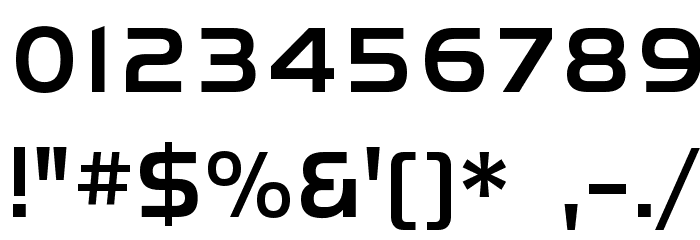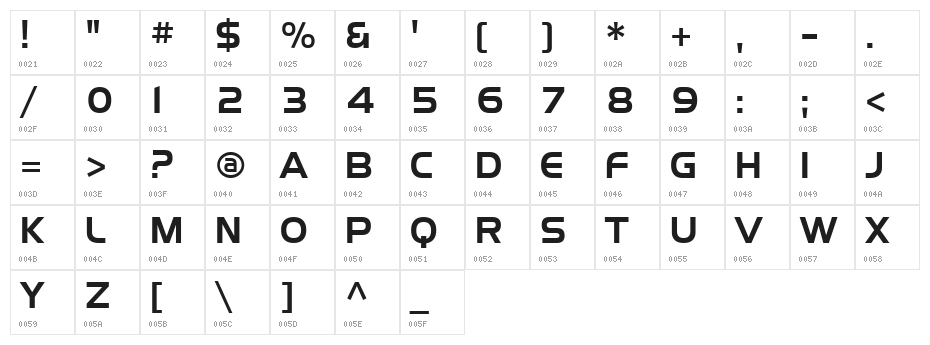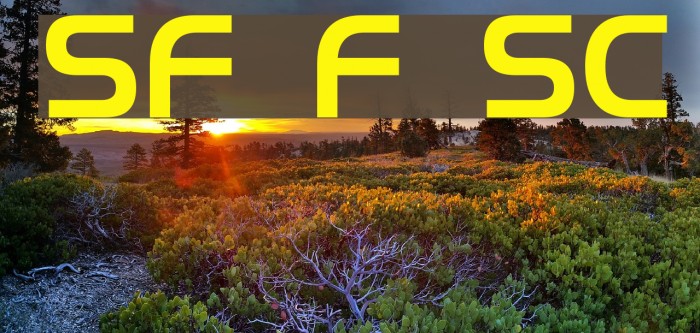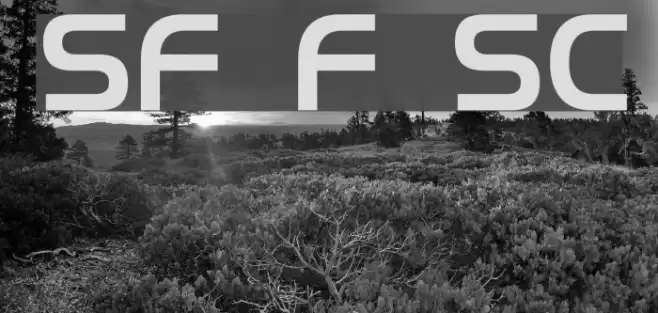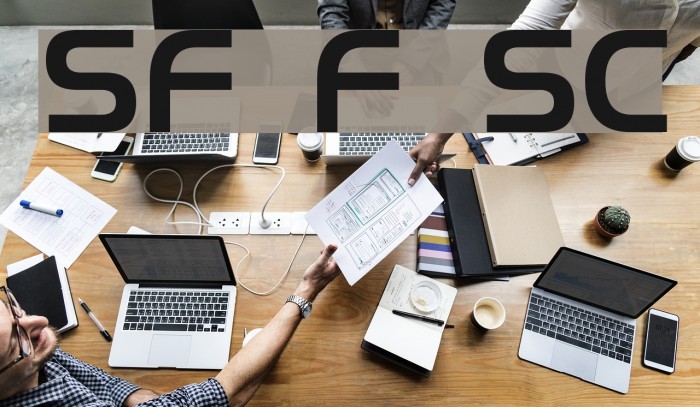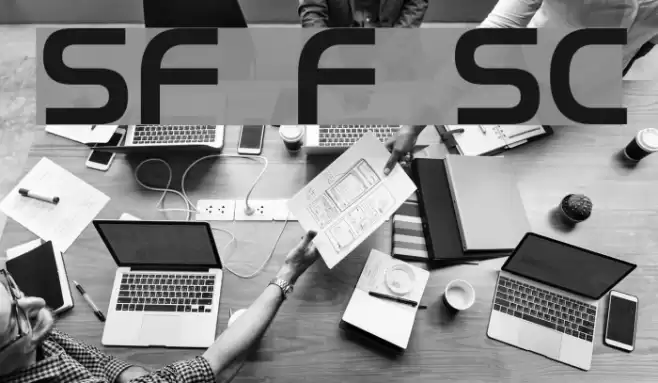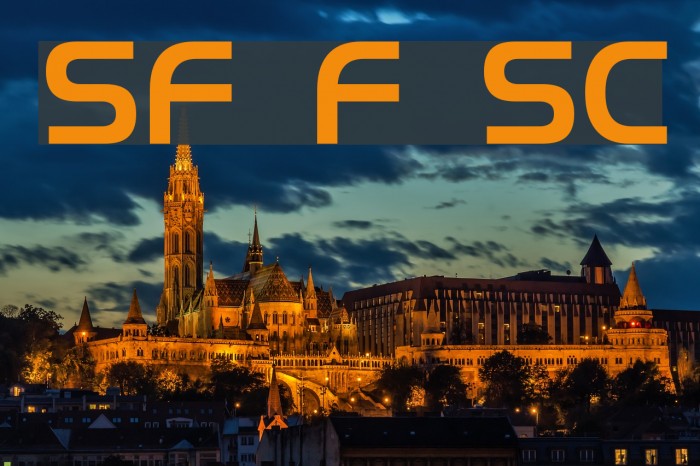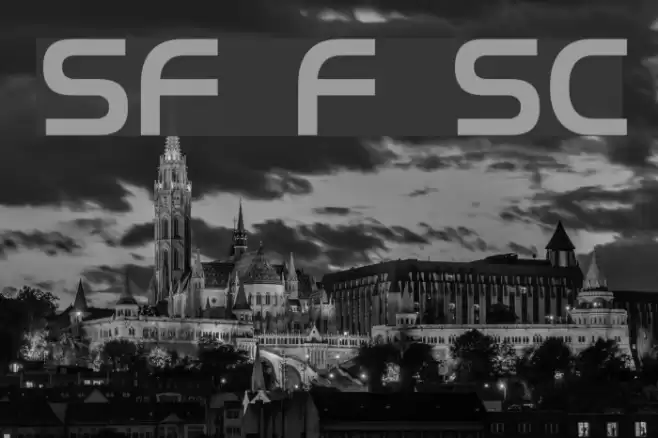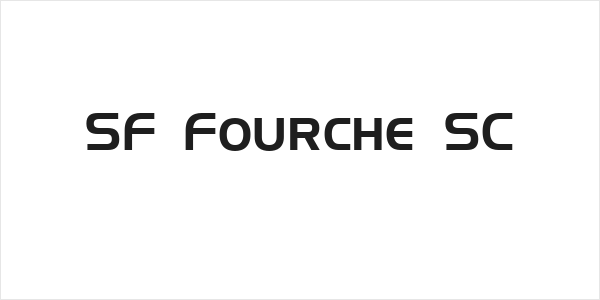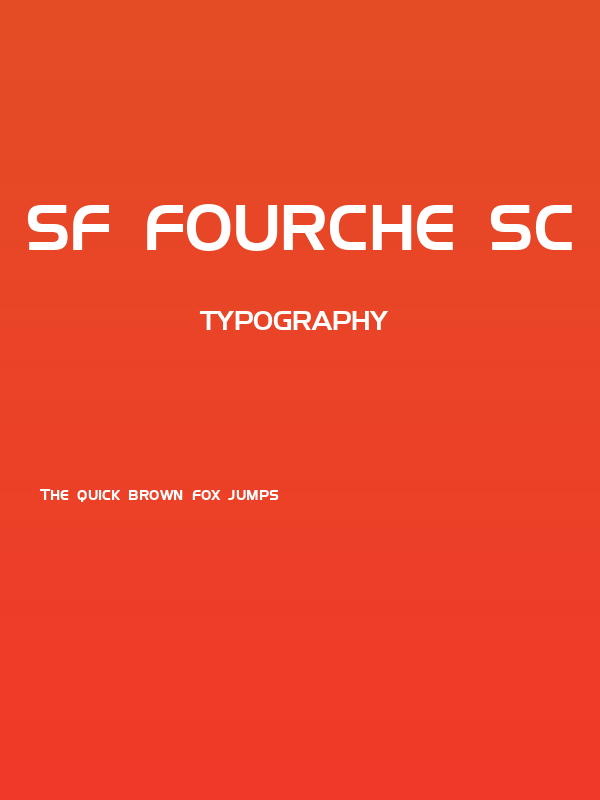
SF Fourche SC Font
SF Fourche SC Description
This font features a bold and modern design with clean, geometric lines and a strong presence. The characters are well-defined with a consistent stroke width, giving it a uniform appearance. The uppercase and lowercase letters maintain a similar style, ensuring readability and coherence across different text sizes. The numerals are distinct and align well with the overall aesthetic, making them suitable for various applications. Special characters are included, enhancing its versatility. The font's design is both functional and stylish, making it ideal for contemporary projects.
| Use Case | Headlines, Logos, Digital Media |
| Proposed Projects | Ideal for branding, advertising, headlines, and digital media projects. |